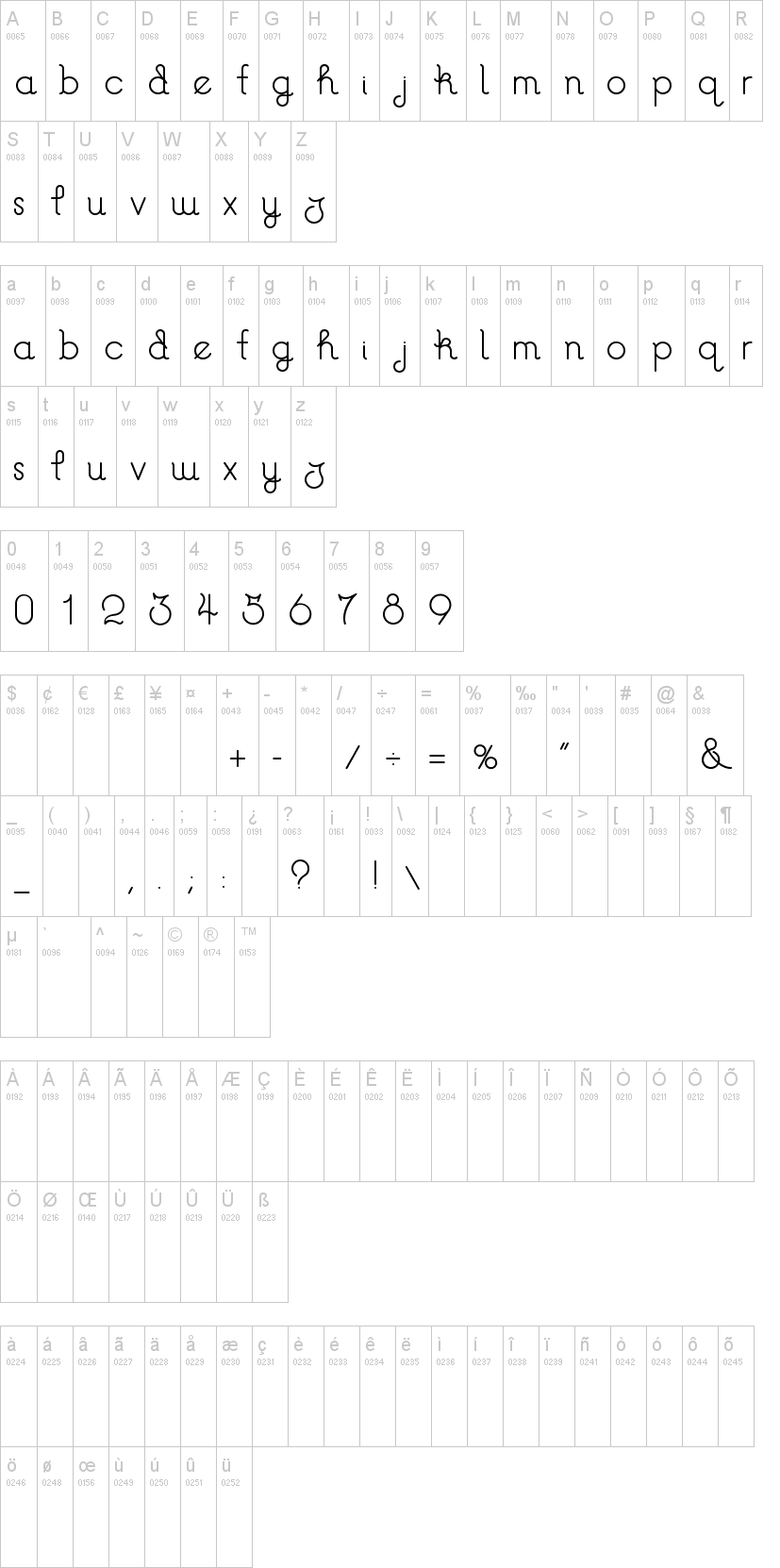
Шрифт Zebra
An experiment in a display type.
Inspired by the use of a Zebra Name Pen. I find the causual stroke of this pen and its multiple usage very appealing. The type mimics the smooth, friendly strokes, into slightly cursive, yet neat handwriting.